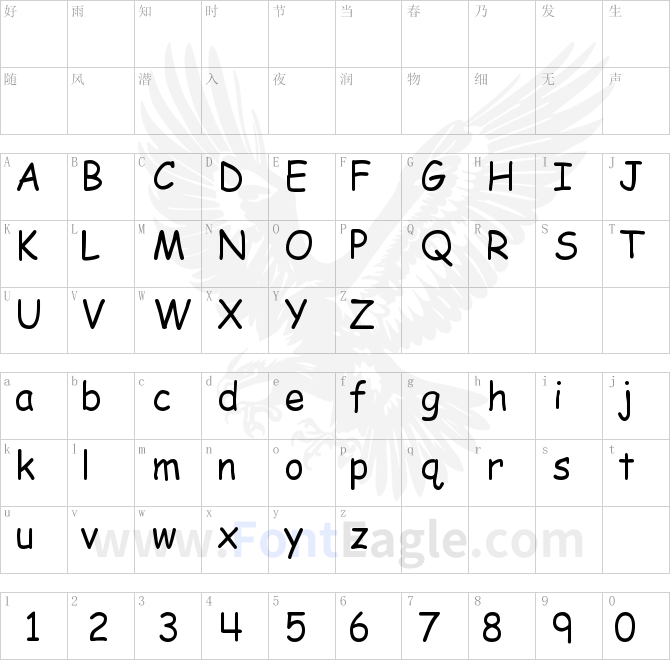
EMcomic-Regular is a great font, widely used in graphic design, single-page menu design, poster design and other fields, and is deeply loved by designers.EMcomic-Regular download.